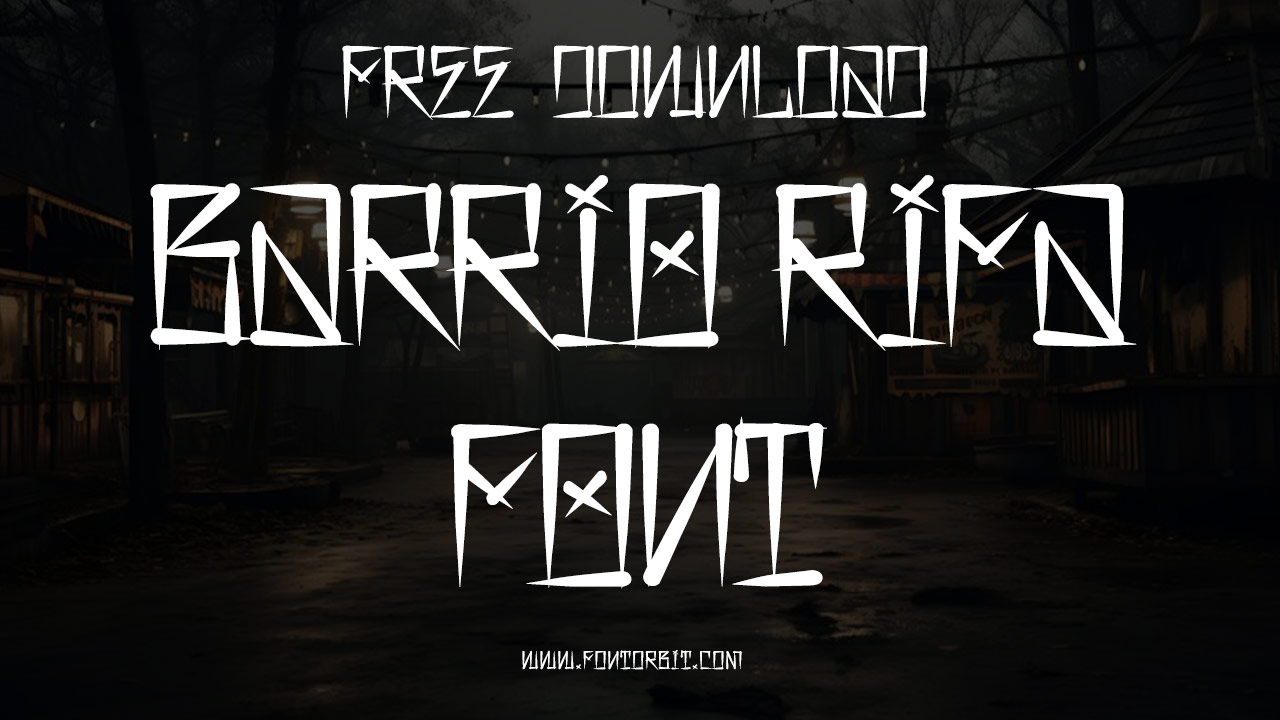
Barrio Rifa is a striking tattoo-inspired typeface designed by Richie Mx, at the design studio Riders on the Storm Design. This font captures the essence of urban culture, particularly the distinctive lettering styles associated with Cholos and gang aesthetics.
Type Of The Barrio Rifa Font (Font Family)
Barrio Rifa belongs to the Fancy font family and features irregular glyphs with rounded characters. The typeface includes:
– Barrio Rifa Regular
The Barrio Rifa Font In Use
- Tattoo designs
- Streetwear graphics
- Urban art
- Merchandise
Barrio Rifa Font is a modern and stylish typeface that adds a unique touch to any design project. With its irregular glyphs and bold character, it’s ideal for tattoo art, urban branding, and more. Explore the creative possibilities with Barrio Rifa and make a statement in your designs!
1.What Are The Characteristics Of Barrio Rifa Font?
Barrio Rifa features irregular glyphs and rounded characters, embodying the essence of urban culture with a tattoo-inspired design.
2.What Are The Considerations For Using Barrio Rifa Font In Branding?
Ensure the font aligns with your brand’s edgy and urban aesthetic. Barrio Rifa is perfect for brands looking to make a bold statement.
3.What Are The Limitations Of Using Barrio Rifa Font In Design?
Its distinct style may not be suitable for formal branding or projects requiring a more classic or understated look.
4.What Sets Barrio Rifa Font Apart From Other Tattoo Fonts?
Its unique combination of irregular glyphs and a strong urban influence makes Barrio Rifa stand out among tattoo-inspired typefaces.
5.How To Create An Impactful Design With Barrio Rifa Font?
Combine it with striking imagery and vibrant colors to enhance its bold aesthetic and make your designs pop.
7.What Styles Are Popular In Barrio Rifa Fonts?
Tattoo, urban, and bold styles are popular, offering a unique aesthetic suitable for a variety of design applications.